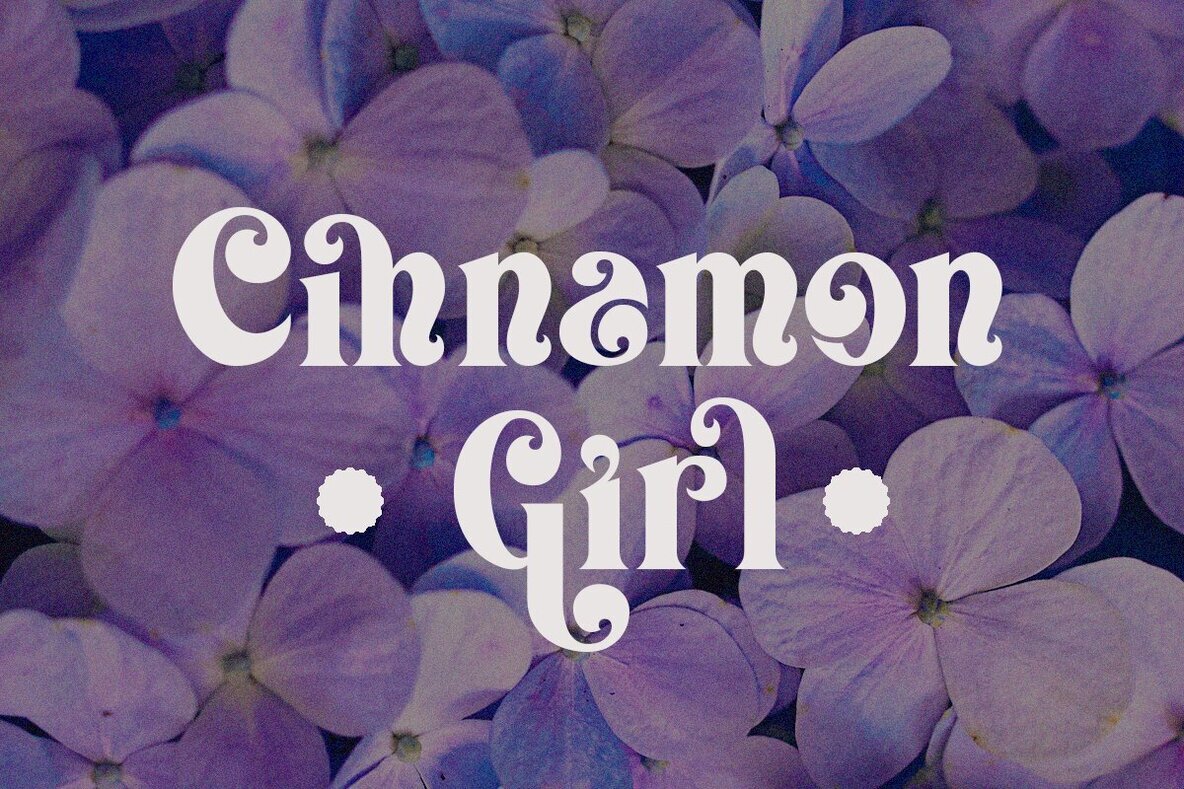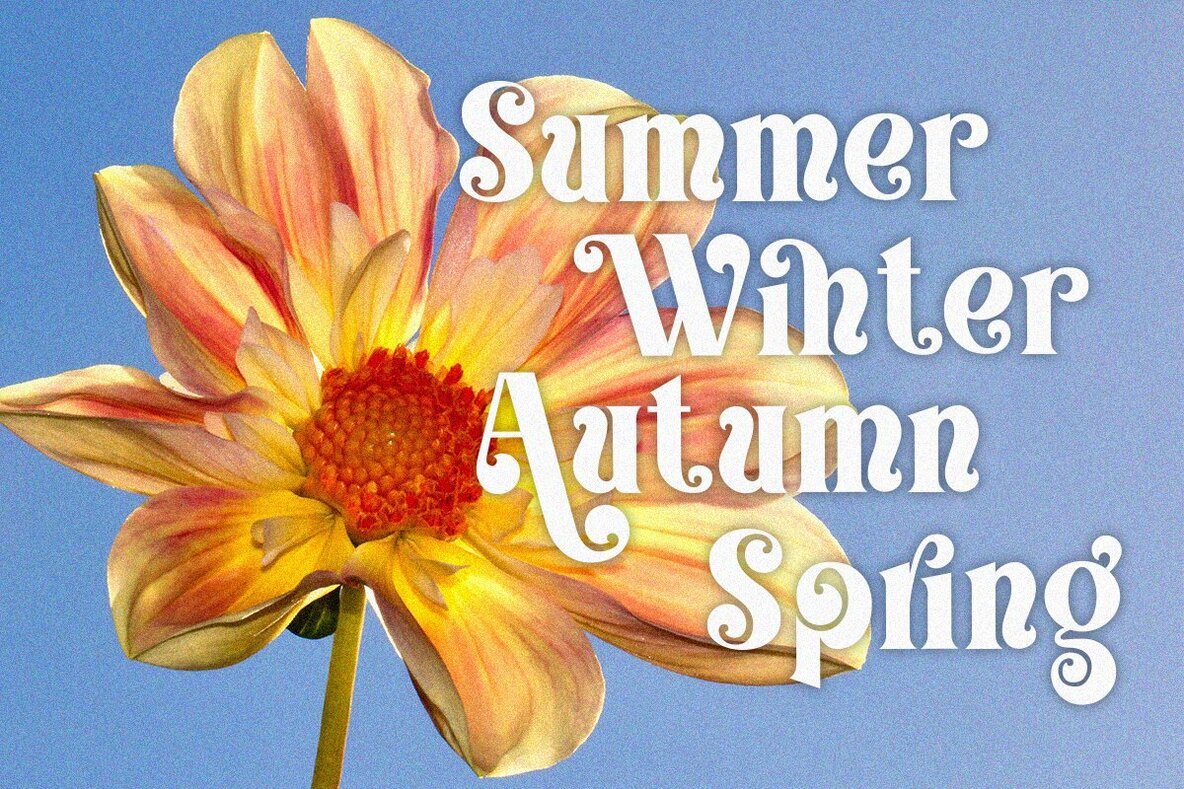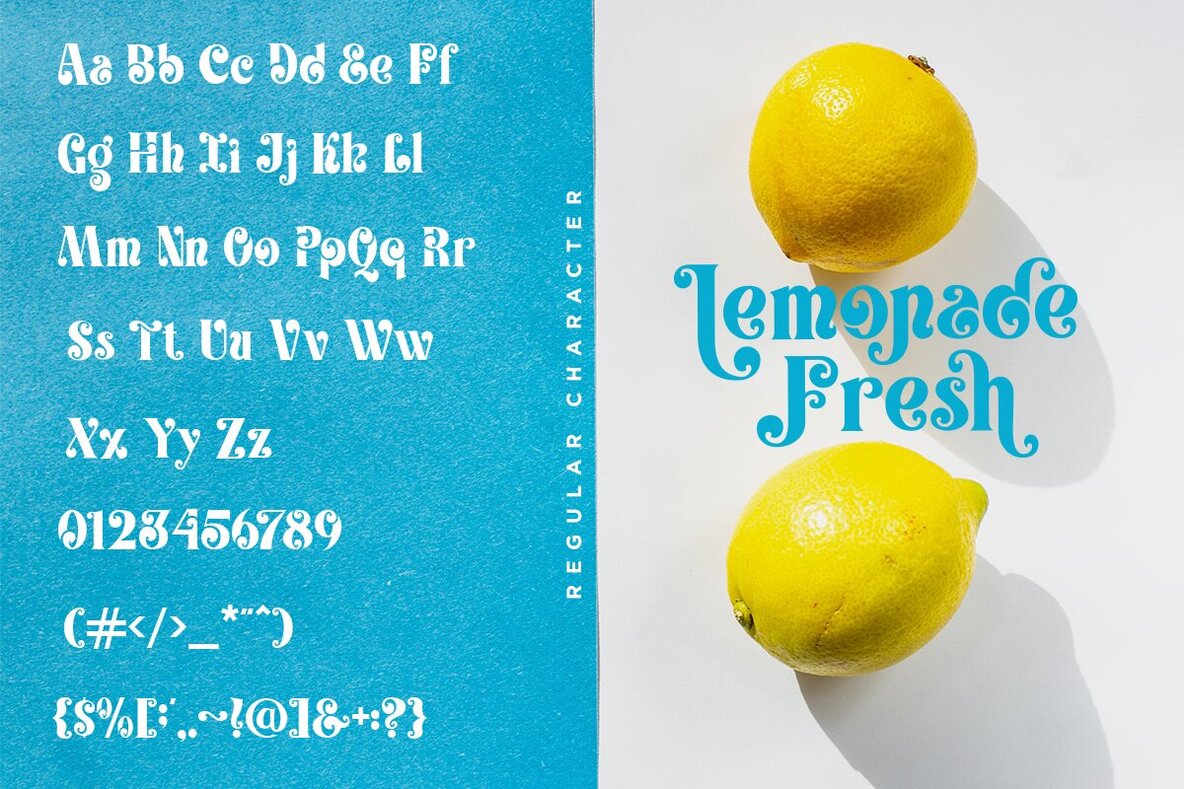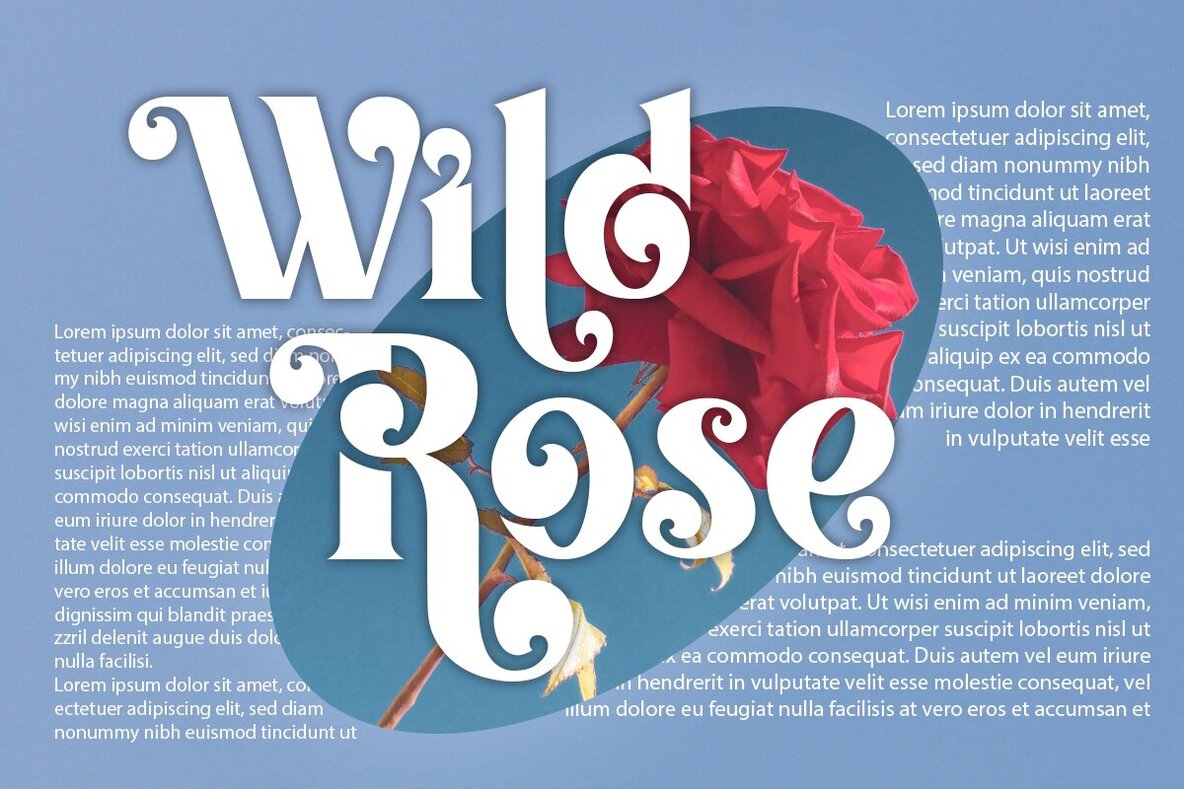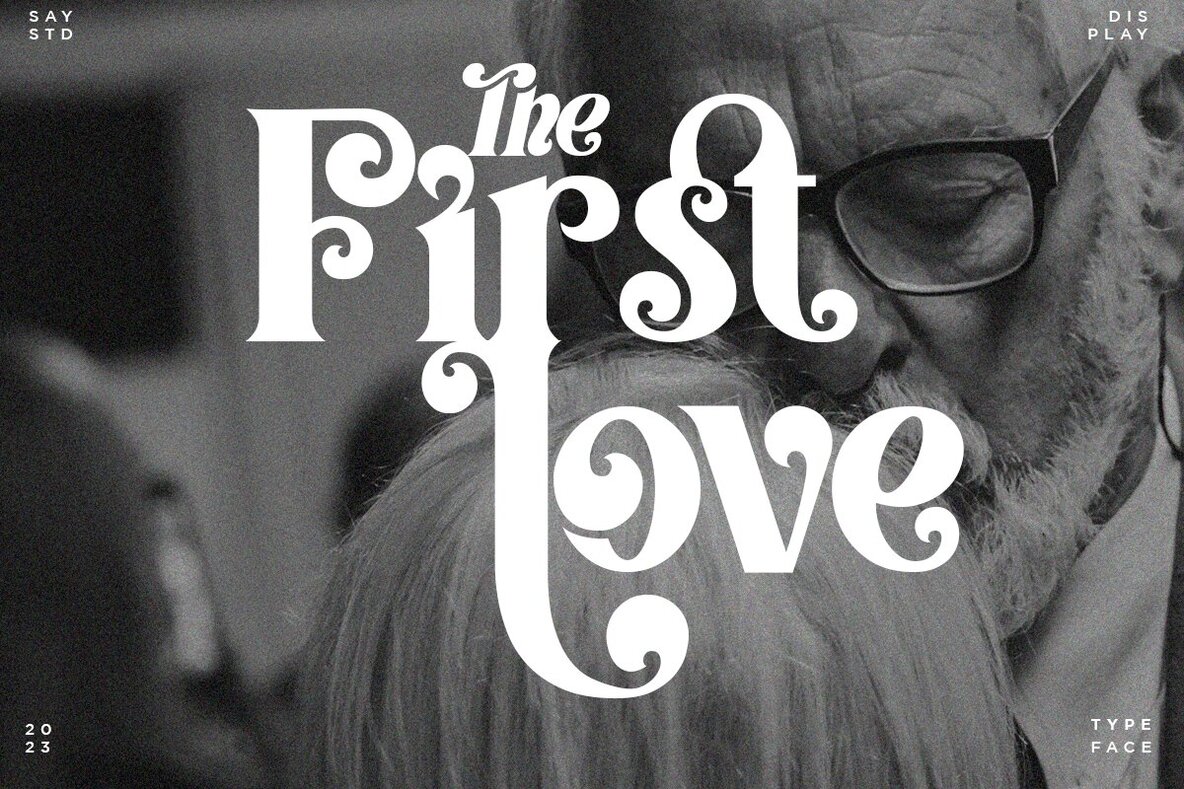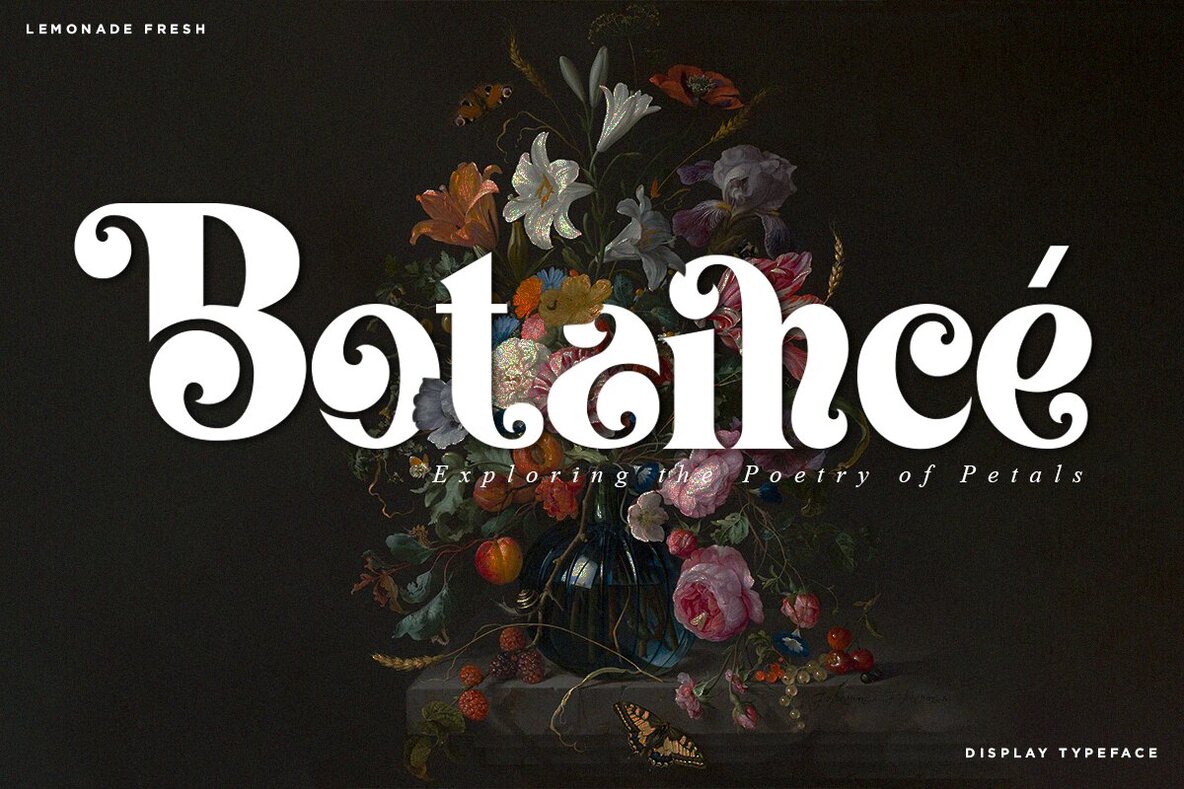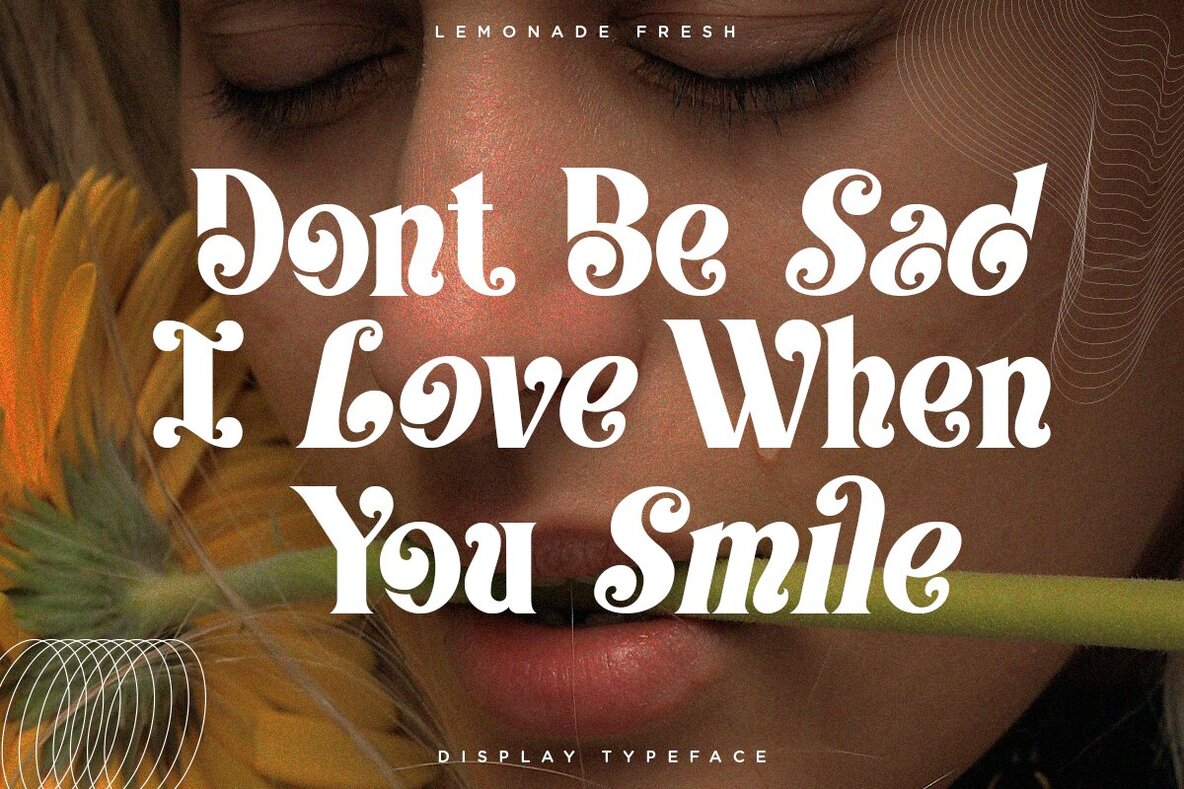
Lemonade Fresh Font
The Lemonade Fresh font is a distinctive Display Serif Typeface featuring unique circular shapes. Inspired by the alternate styles in traditional serif fonts, Lemonade Fresh presents a regular shape with over 50 alternate combinations to create elegant curves effortlessly. This display font, with its moderate contrast, is ideal for various projects including branding, logos, wedding designs, social media posts, advertisements, product packaging, product design, labels, photography, watermarks, invitations, and stationery. Its design ensures high legibility across all applications.Lemonade Fresh: Unique Display Serif Typeface